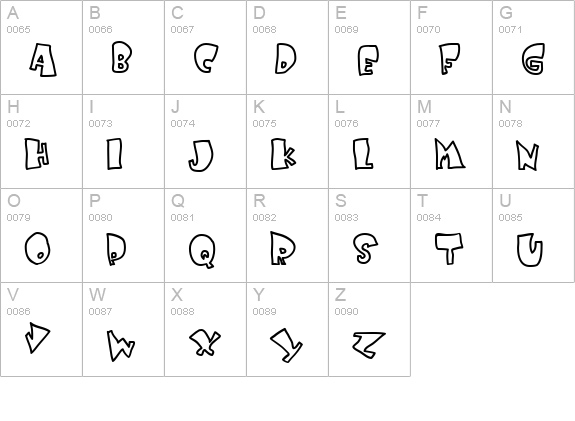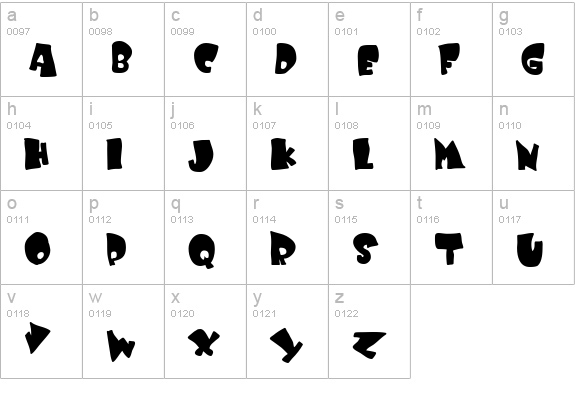
Kruffy Font Details
Kruffy font is a whimsical and playful typeface that brings a sense of fun and creativity to any design project. With its quirky and irregular letter shapes, Kruffy is perfect for adding a touch of uniqueness to your work. Whether you're creating invitations, posters, or social media graphics, Kruffy will surely make your text stand out. The best part? Kruffy font is completely free to download at FontsMarket.com. This means you can easily access this charming font and use it in your projects without any cost. So why wait? Add a touch of whimsy to your designs with Kruffy font today!